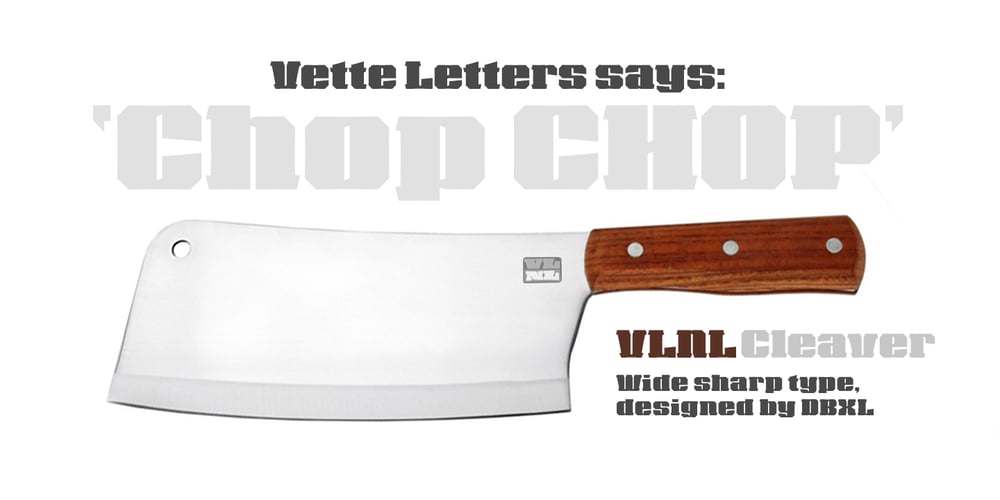
VLNL Cleaver Font Family was designed by Donald Beekman and published by VetteLetters. VLNL Cleaver contains 1 styles and family package options. Chop chop! VLNL Cleaver is an important tool in the Vette Letters’ kitchen. It’s a butcher knife of a font. Razor sharp, ultra heavy and with pointy slanted serifs. At first glance it seems straight-lined, but a closer look revails that all straight lines are curved inward slightly, which enhances the sharp image even more. Cleaver was originally designed by DBXL for cutting meat – hell, it even hacks right through bone. It can easily splice a chicken in one slash or seperate ribs, just like that. You can also very well use it to chop up hard vegetables like pumpkin or squash on the chopping block. It gets better, the opposite blunt side can be deployed to crush ingredients like garlic, nuts or spices like black pepper. You could use a grinder, but with Cleaver it’s more fun, isn’t it? VLNL Cleaver is suitable to give a sharp edge to flyers, posters, logos (Heavy metal bands and other) or magazine headlines.